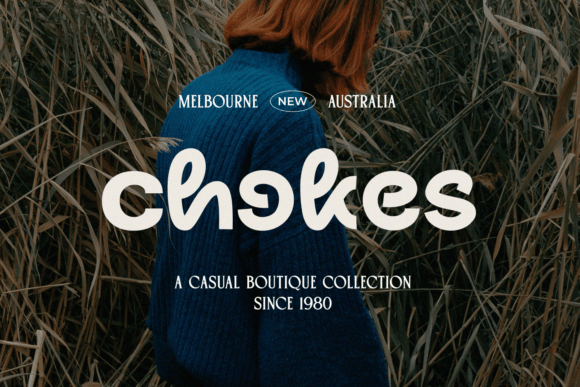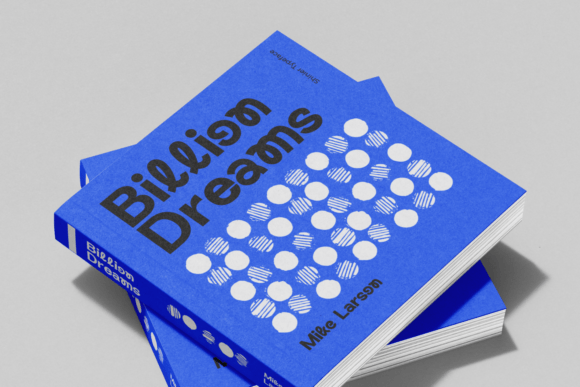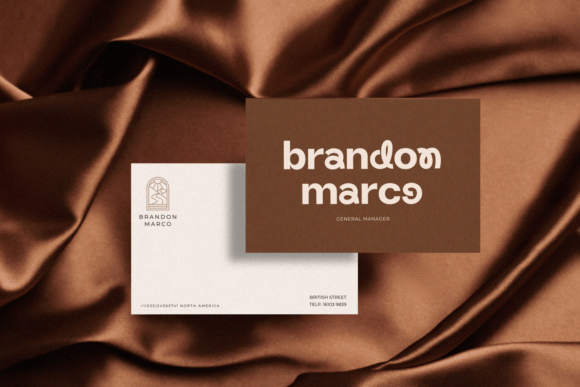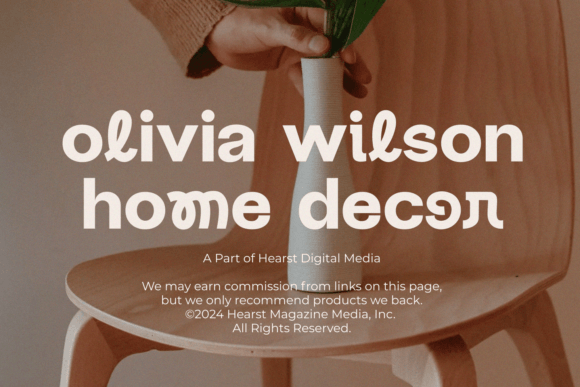
Shinier Font
Shinier is an experimental sans serif font . Its unique structure combines bold lines and unexpected curves, bringing a fresh perspective to modern typography. Each character is meticulously crafted, resulting in a font that balances between clarity and creative exploration. Perfectly suited for contemporary branding, editorial layouts, and digital media, Shinier captures attention with its unconventional design while maintaining readability.